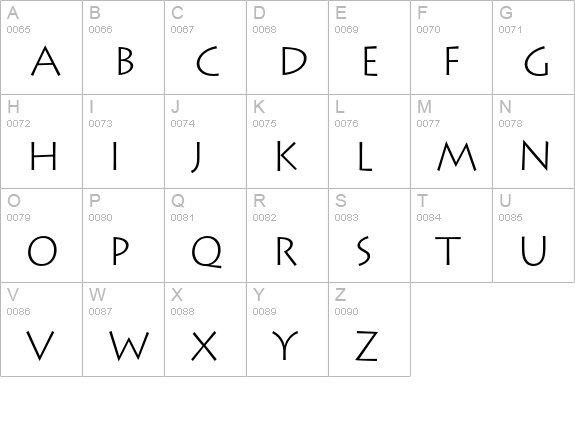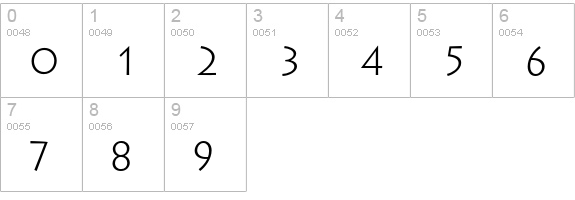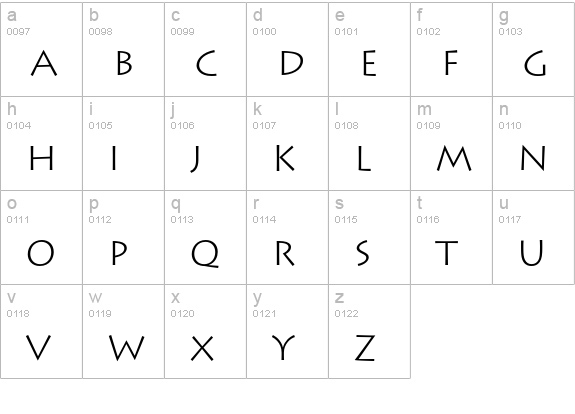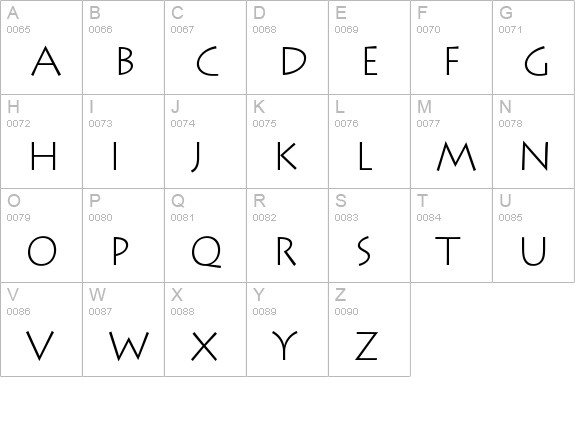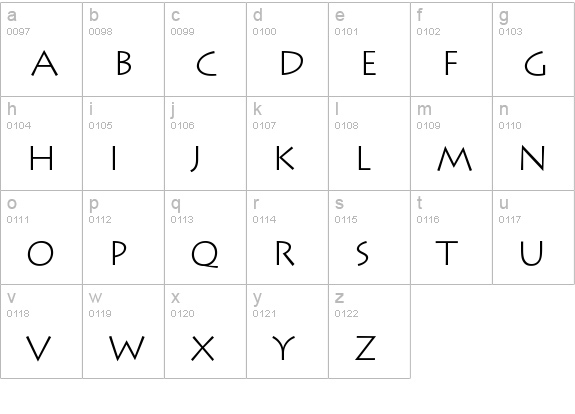
Lithos Pro Light Font Details
Lithos Pro Light is a refined, elegant variant in the Lithos typeface family \xE2\x80\x94 well suited to elegant body text, refined sub-headings, and luxury branding.
Lithos Pro Light font is a modern and elegant typeface that exudes sophistication and style. With its clean lines and subtle curves, this font is perfect for a wide range of design projects, from branding to editorial design. The Light weight of Lithos Pro adds a touch of delicacy and refinement to any text, making it ideal for conveying a sense of elegance and professionalism. The best part is that Lithos Pro Light font is available for free download at FontsMarket.com, making it accessible to designers and creatives looking to enhance their projects with a high-quality typeface. Whether you're working on a website, logo, or printed materials, Lithos Pro Light font is sure to elevate your design and leave a lasting impression on your audience. Download it today and add a touch of sophistication to your next project!